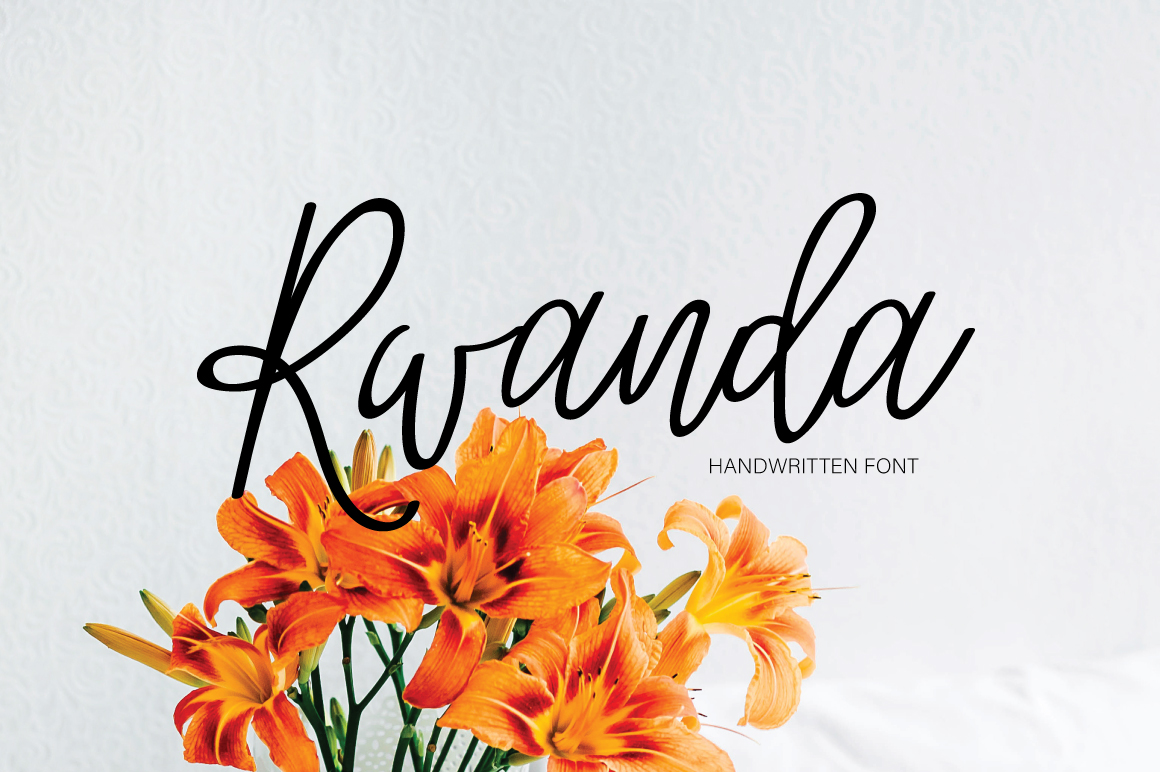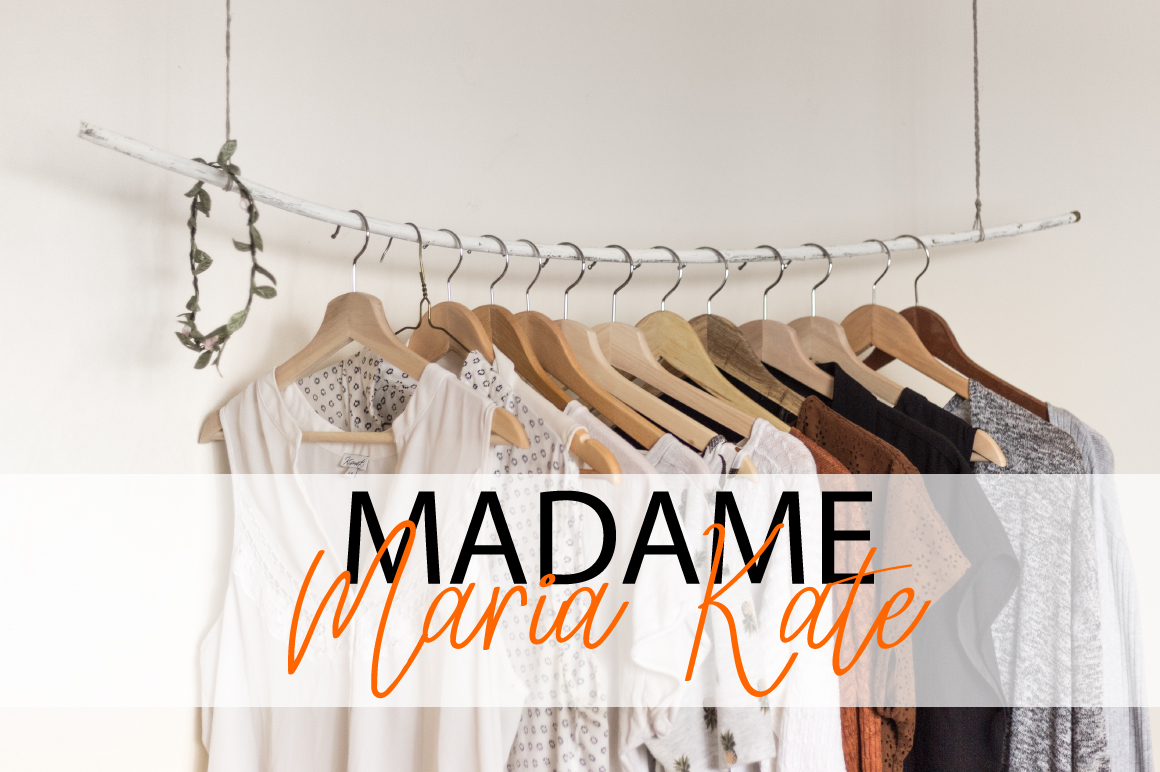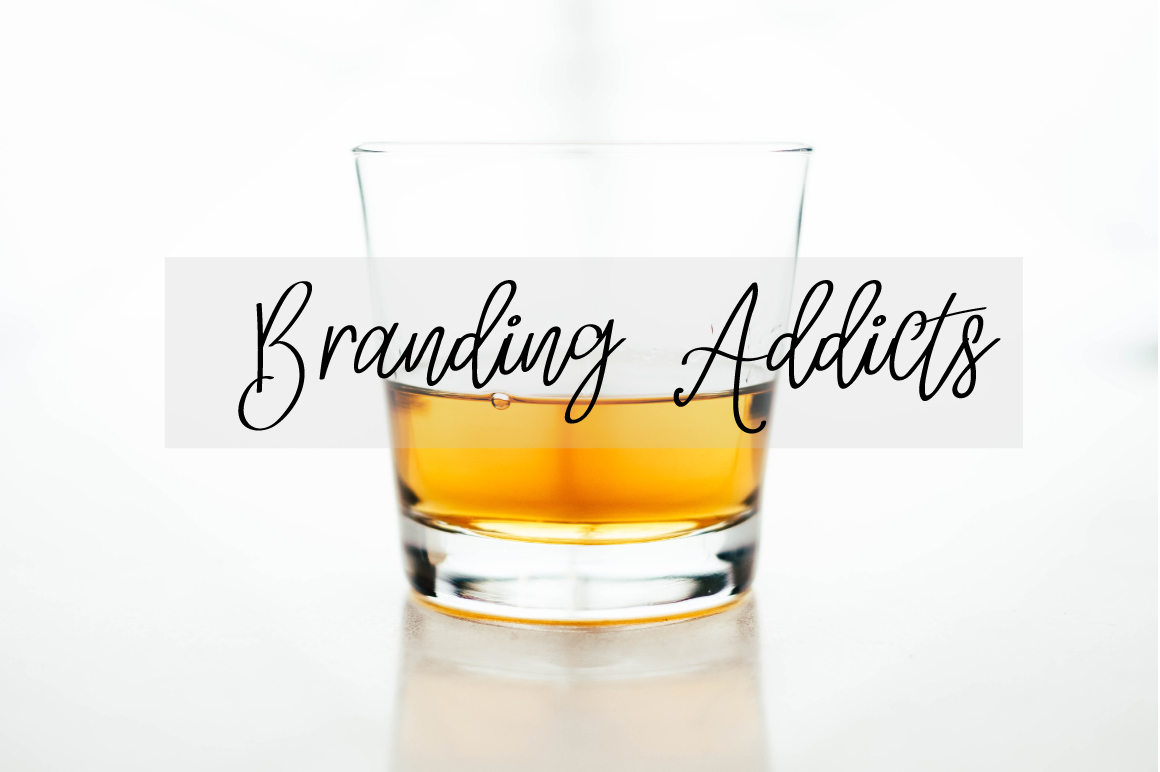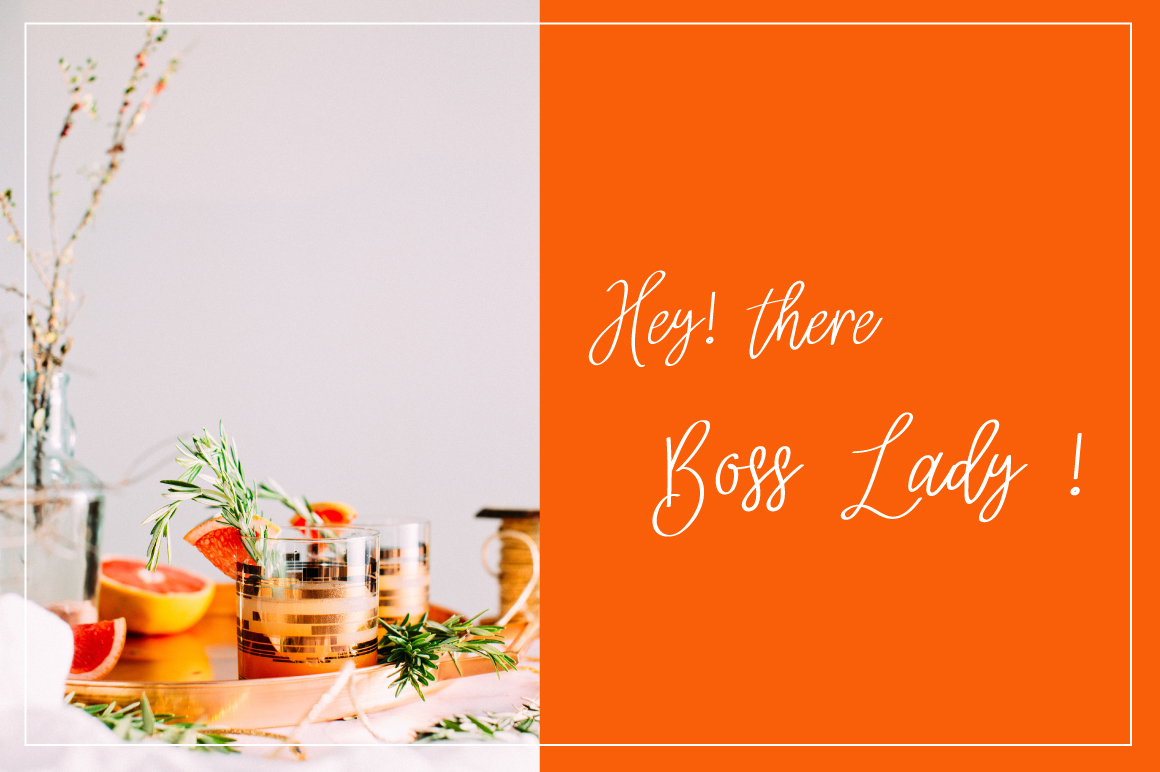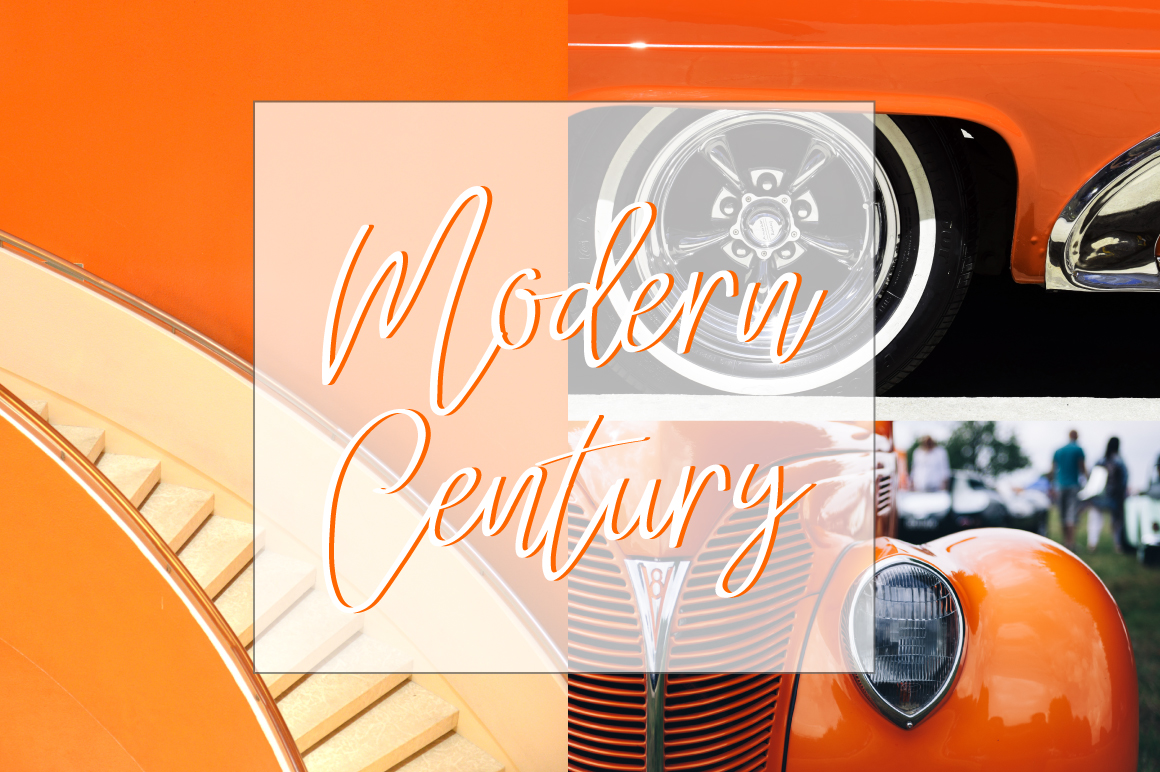
Rwanda Font
About Rwanda Font
This handwritten, beautifully crafted script font is a great way to amplify your designs. Rwanda is both bubbly and variable, and is a great way to keep your designs on trend.